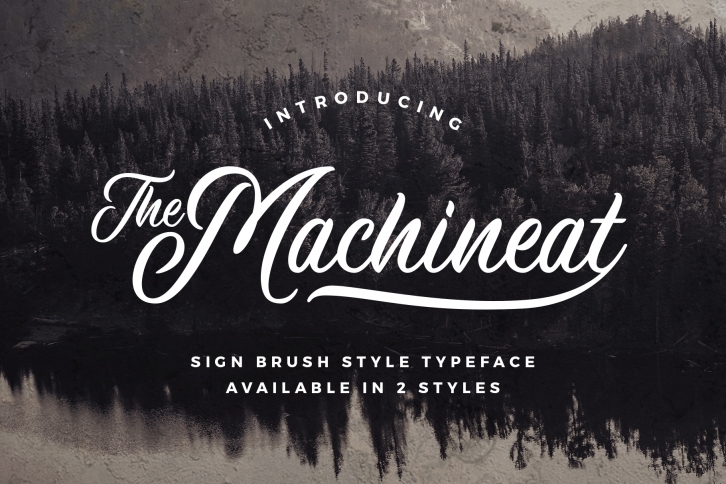
Machineat is a beautiful font that was designed by Wacaksara Co. It's a great choice for designers and creatives who need such a font. It was released on June 19, 2018 and the file size is 5.42 MB. Machineat may give a more youthful, expressive and casual look to your project. It is a very beautiful, refined, elegant, and high-quality font.